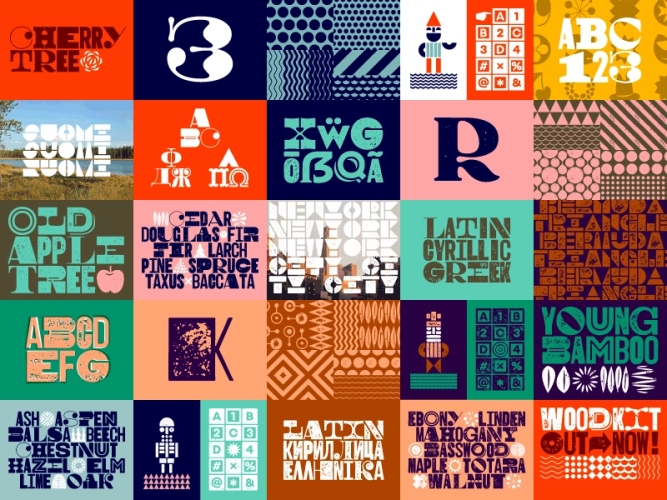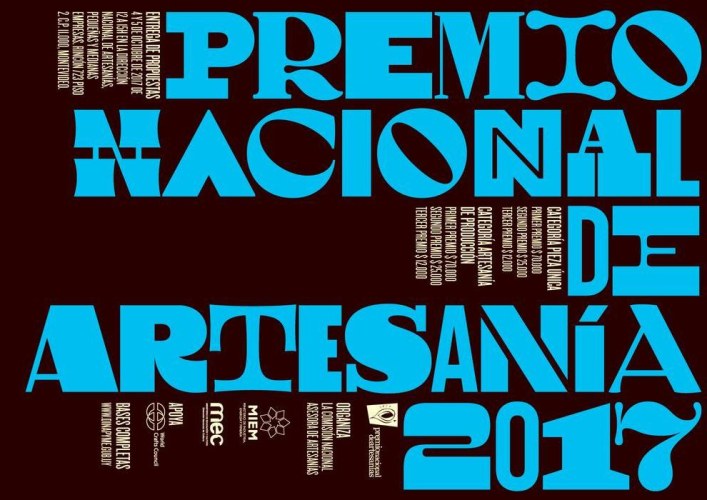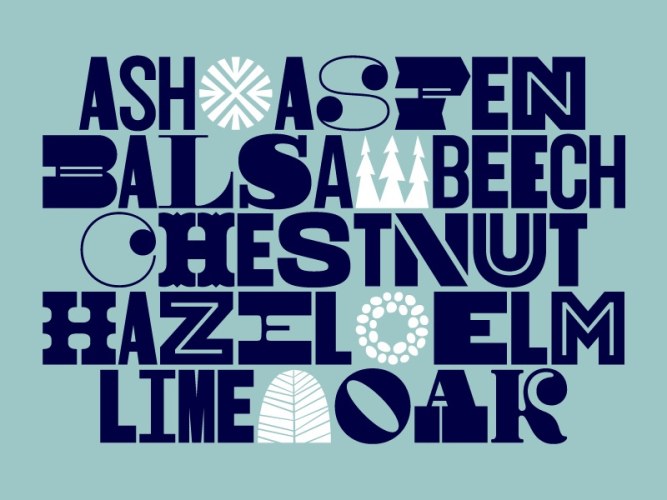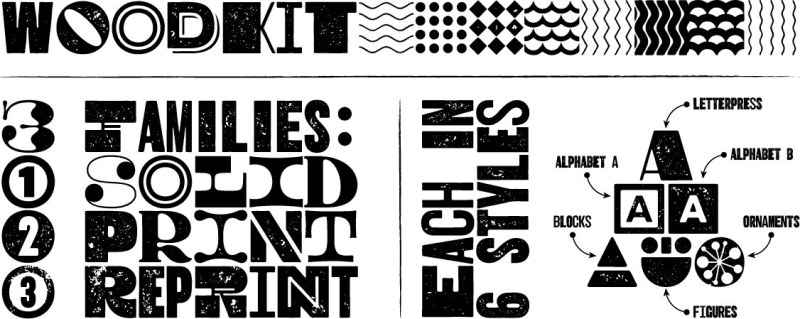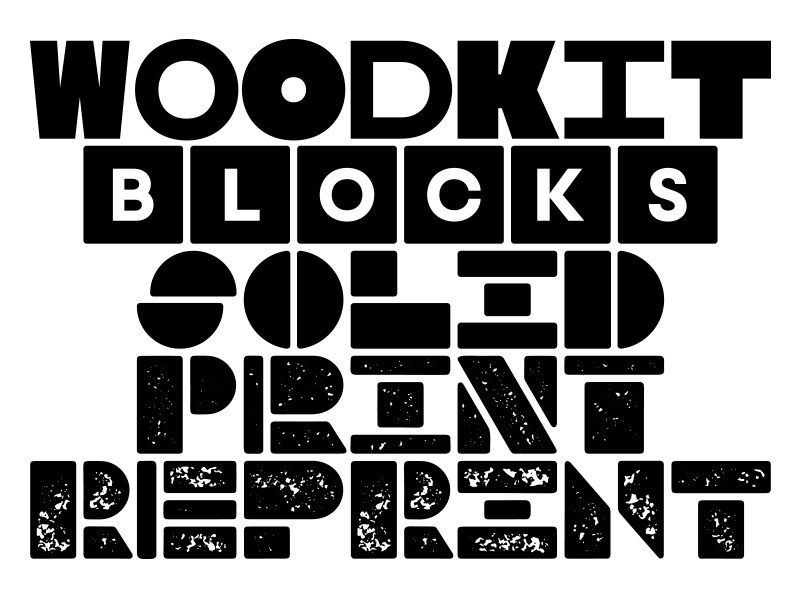
Woodkit Print Pro Font Family
Woodkit is a playful fixed-width display series of typefaces inspired by wood type. Woodkit is a type system inspired by wood type and letterpress consisting of three families — Solid, Print and Reprint, each with six distinct styles covering various alphabet designs, components and miscellaneous ornaments. Woodkit supports Latin, Cyrillic and Greek scripts.